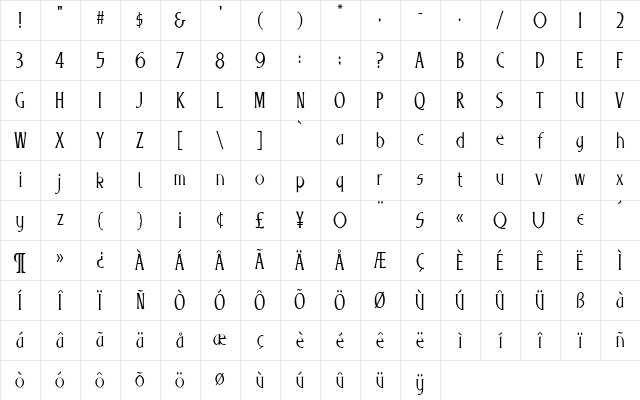
Luther Regular
Foundry: by Panache Graphics,
Design Context for Luther
Luther is a composed and adaptable typeface that performs quietly and consistently across a wide range of design contexts.
Who designed the Luther Regular font?